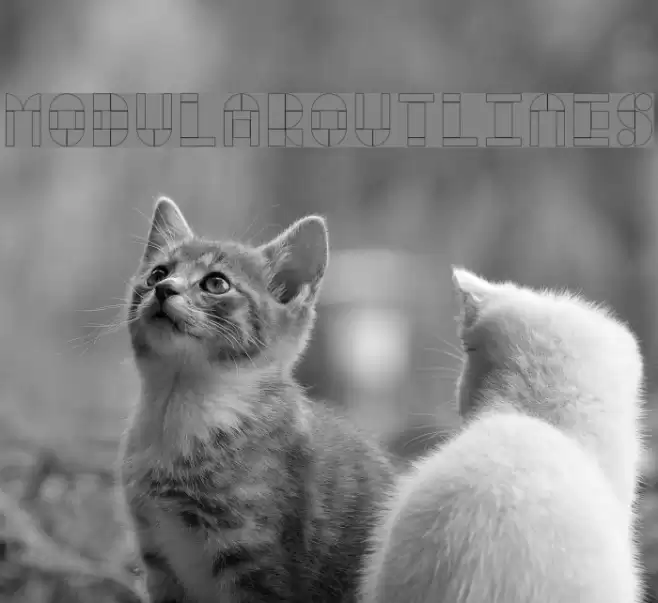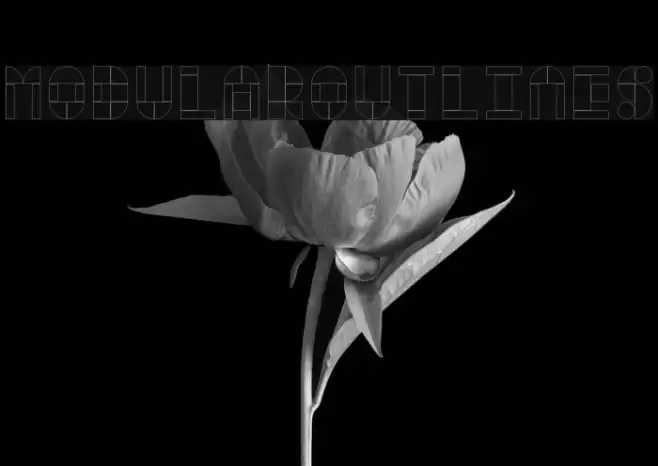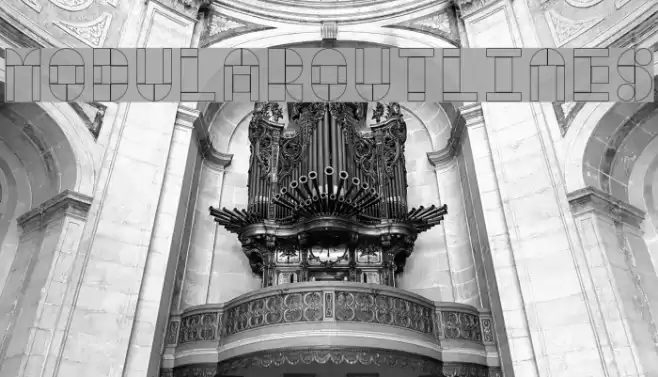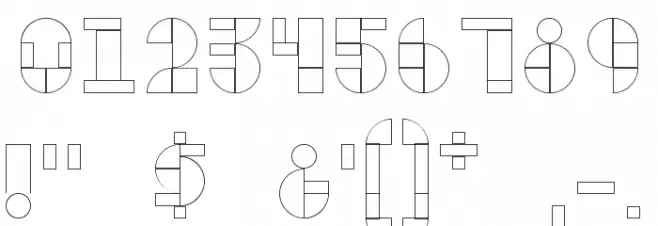
Modular Outlines Font
Modular Outlines Description
This font features a unique modular design with outlines that create a geometric and futuristic appearance. Each character is constructed using a combination of straight lines and curves, forming a grid-like structure that emphasizes symmetry and balance. The uppercase and lowercase letters share a consistent style, maintaining the modular theme throughout. Numbers and special characters are designed with the same attention to detail, ensuring a cohesive look across all elements. The font's outline nature gives it a light and airy feel, making it stand out in any design project.
A geometric, modular outline font with a futuristic and symmetrical design from Uncategorized fonts.
- Proposed Projects: Ideal for modern branding, tech-related projects, futuristic posters, and digital art where a unique and eye-catching typeface is desired.